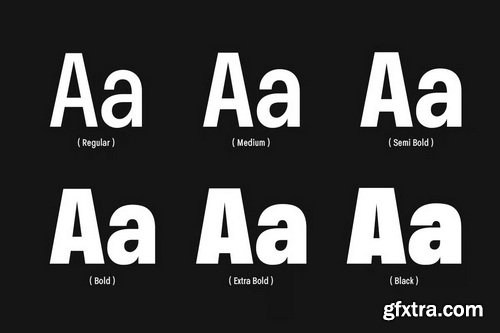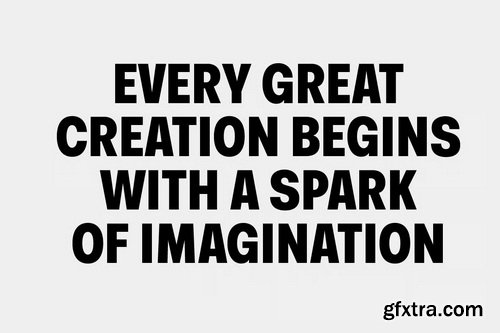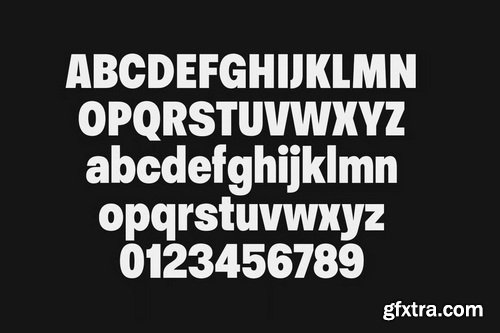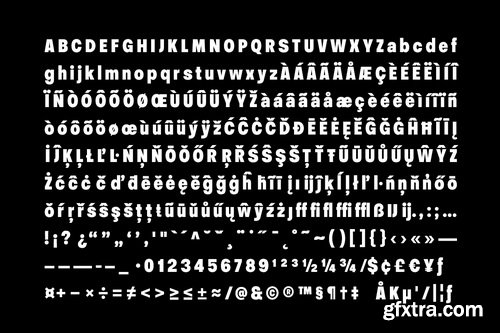
Himneu Condensed Font
- Himneu is a condensed sans serif font featuring 6 styles from Regular to Black. Designed for a compact, bold, and modern look, Himneu is perfect for large headlines, strong logos, and branding that needs to appear confident and full of energy.
- Its sleek proportions deliver an elegant feel, while still carrying the raw power of brutalist and techno-futuristic design. Ideal for fitness brands, hip hop posters, or retro 80s-inspired visuals that are making a strong comeback.